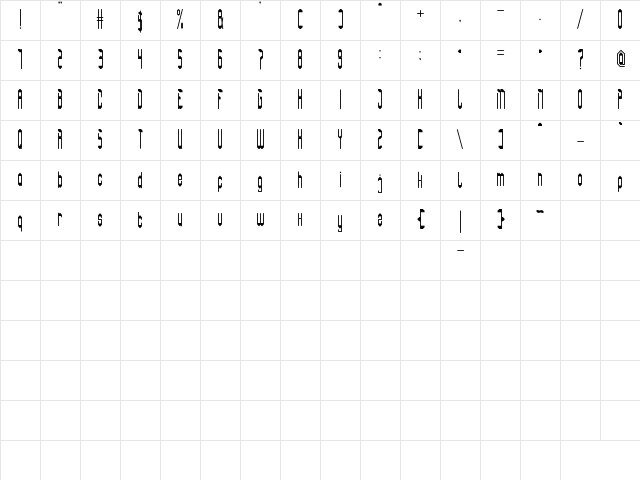
Complete Samurai Sword Regular glyph index. Displaying only characters natively supported by Samurai Sword Regular font.
Samurai Sword is a composed and adaptable typeface that performs quietly and consistently across a wide range of design contexts.